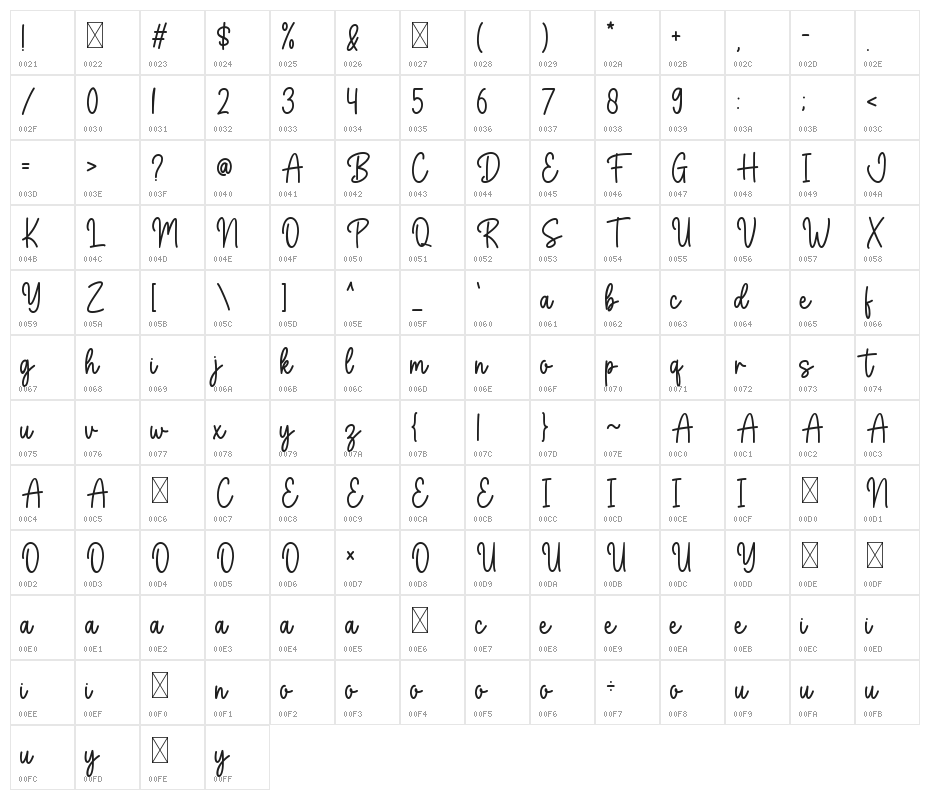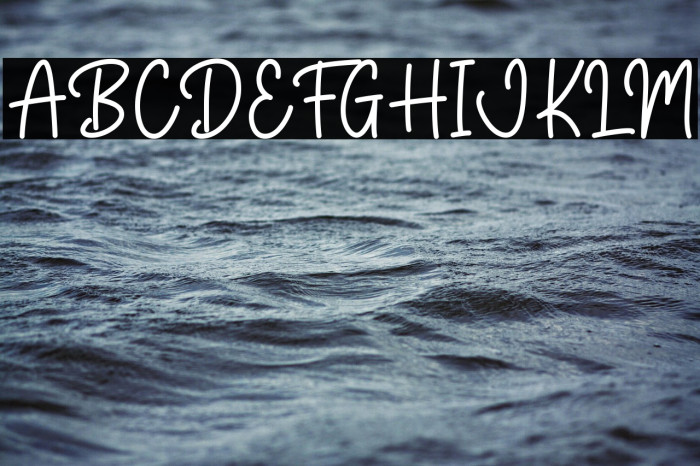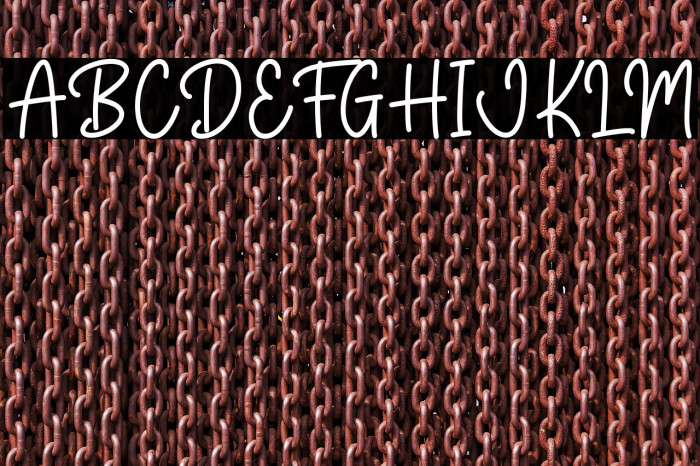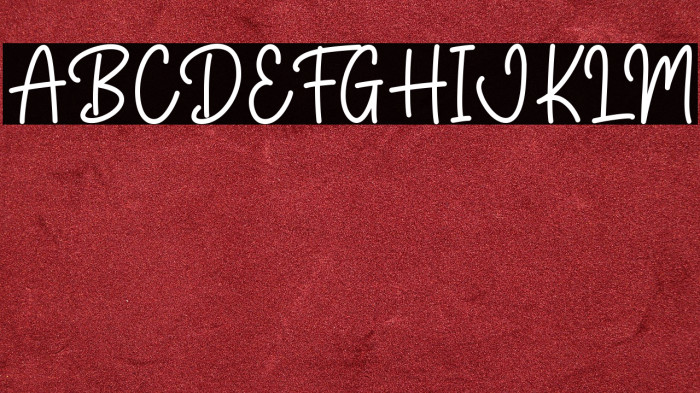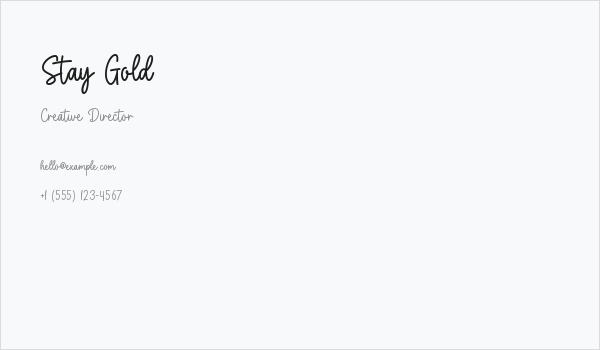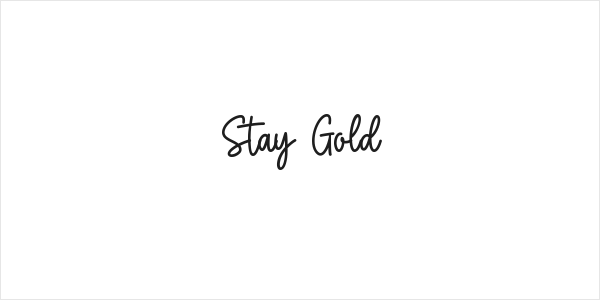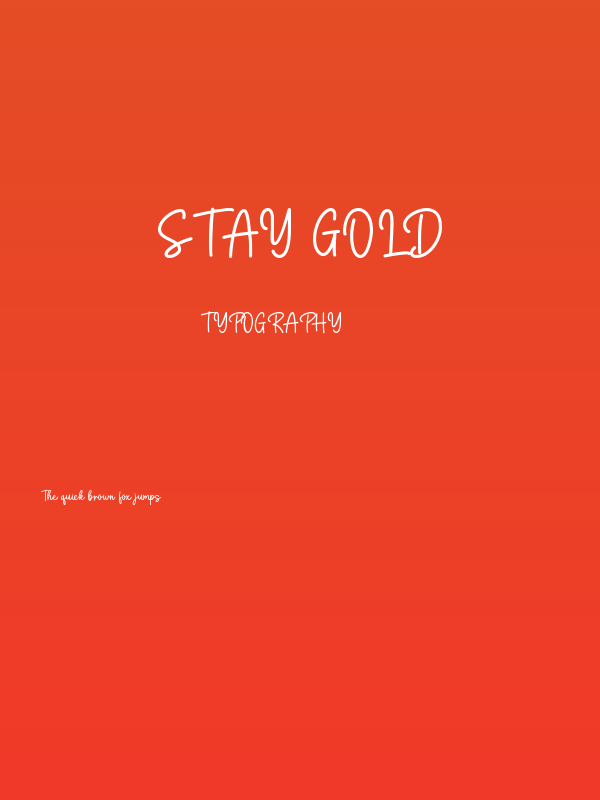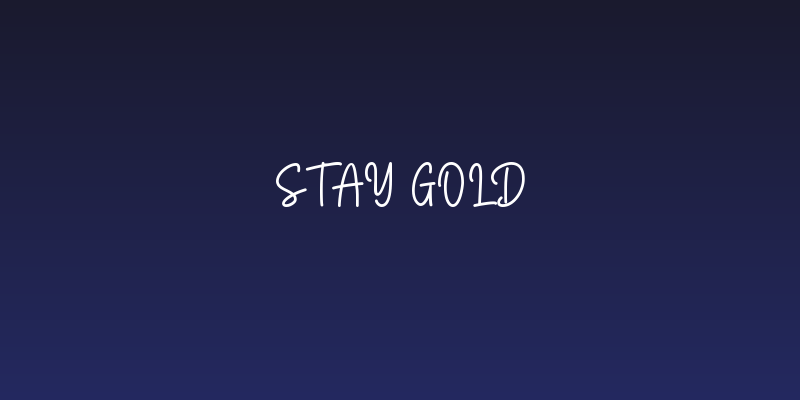
Stay Gold Font
Stay Gold Description
This font features a playful and casual script style, characterized by its flowing, handwritten appearance. The uppercase letters are tall and slightly narrow, with a consistent stroke width that gives them a clean and modern look. The lowercase letters maintain a cohesive style, with smooth curves and loops that enhance the font's friendly and approachable feel. Numbers are well-integrated, matching the overall aesthetic with their rounded forms. Special characters are included, maintaining the same lively and informal style. This font is versatile, suitable for a variety of creative projects.